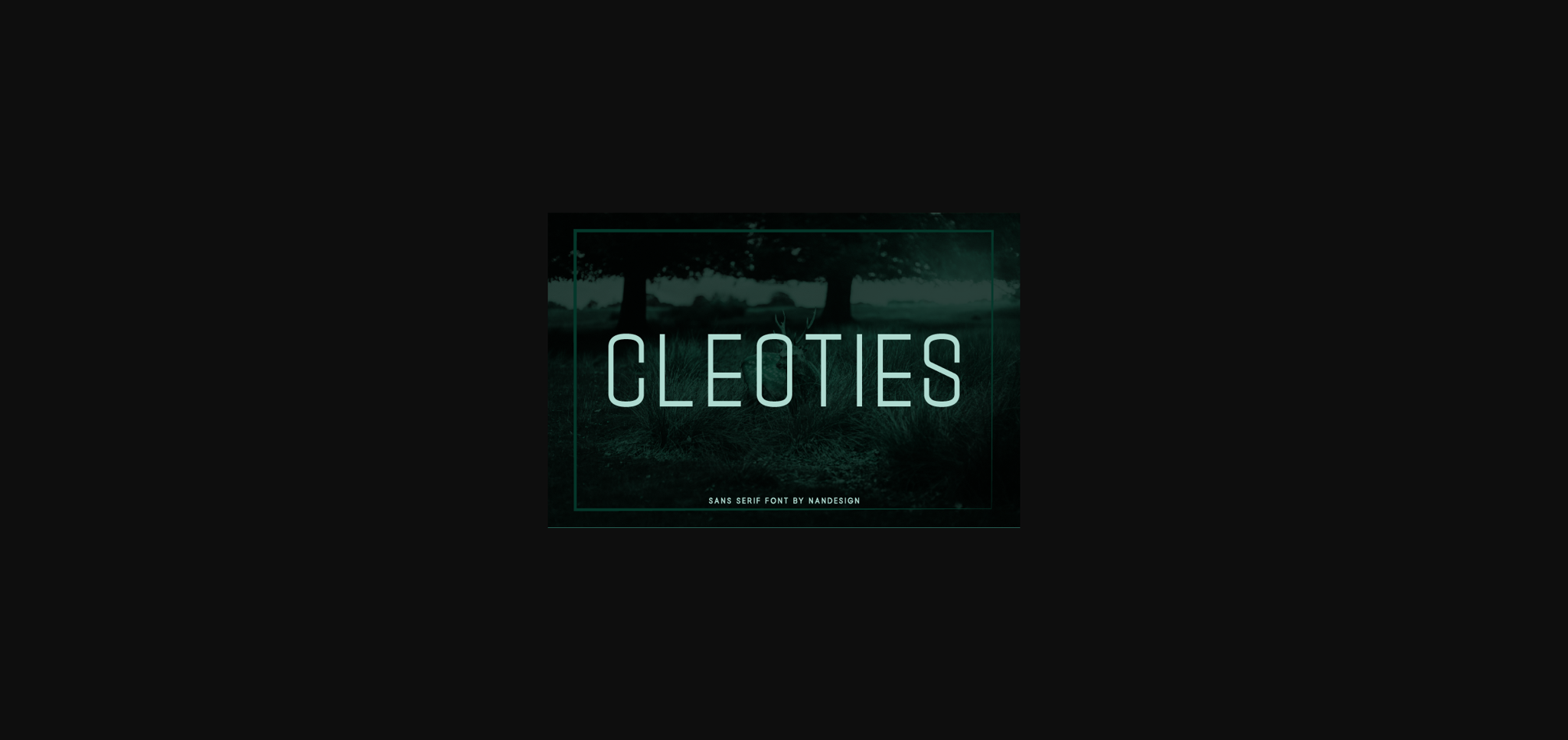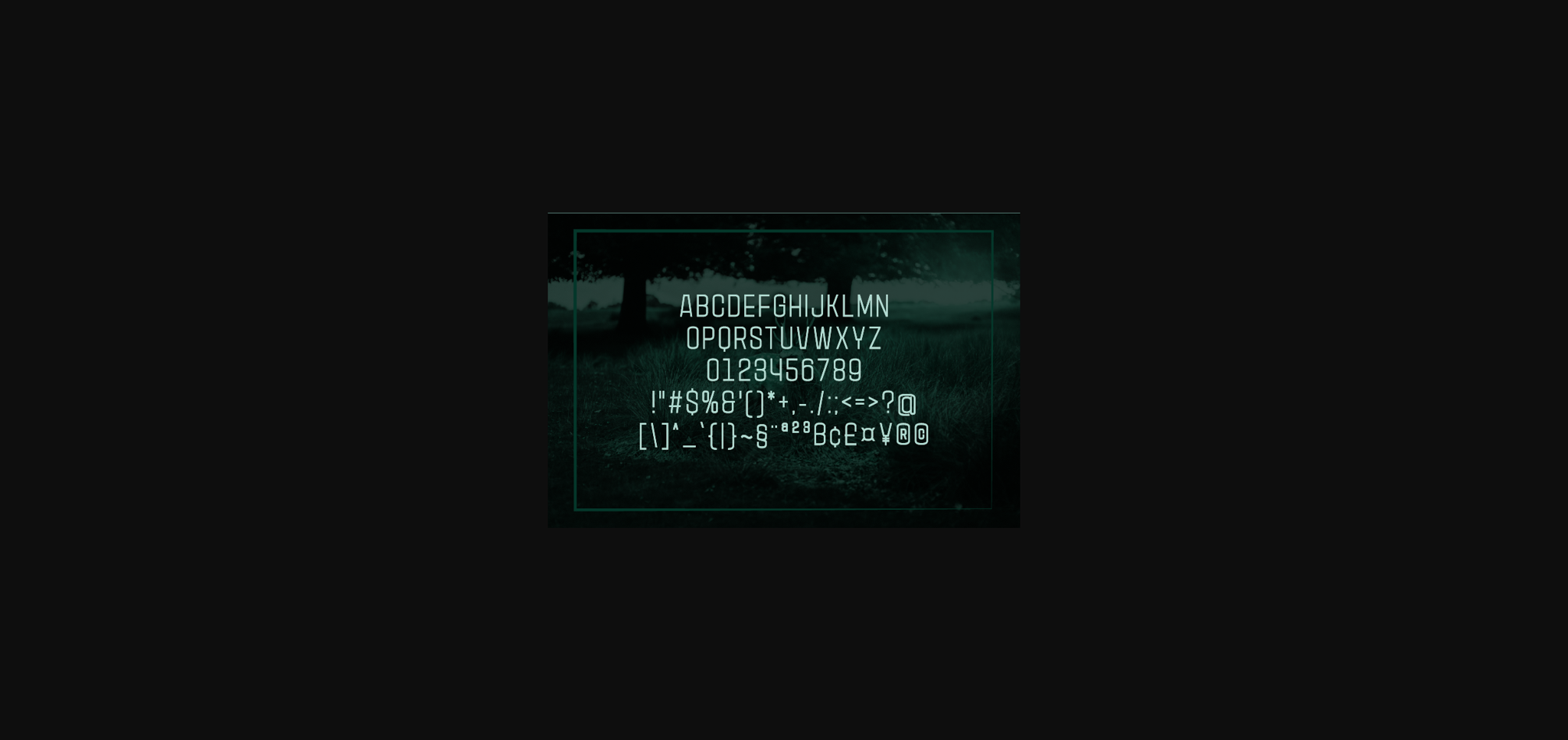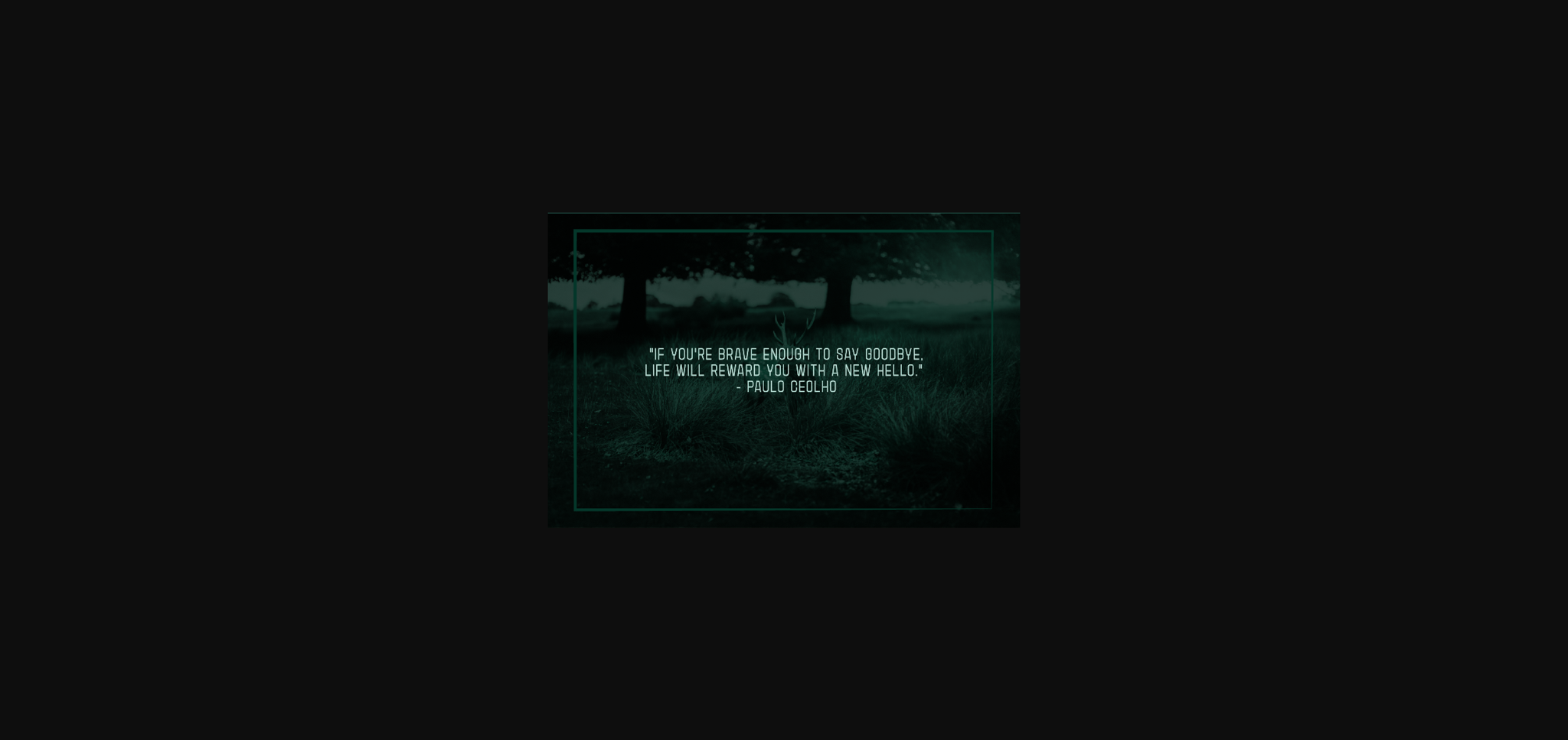
HomeSans Serif FontsCleoties Font Sans Serif Fonts Cleoties Font FacebookXPinterestWhatsApp 1 of 5 ... Cleoties Font Poster 2... Cleoties Font Poster 3... Cleoties Font Poster 4... Cleoties Font Poster 5... About Cleoties Font Cleoties is a fantastic sans serif font. It will complement any design that you are working on. Perfect for displays, headers, invitations, wedding invitations, and so much more! DOWNLOAD NOW People also explored Jingle Joy Font Monster Font Pathway script – 2 styles Eritany Annika Font Angela Font Chill Font Fleabitten Font ZP Blitzed Font The Garisha Font 458 0 TagsCleoties Font Previous articlePreditch FontNext articleMintlite Font LEAVE A REPLY Cancel reply Comment: Please enter your comment! Name:* Please enter your name here Email:* You have entered an incorrect email address! Please enter your email address here Website: Save my name, email, and website in this browser for the next time I comment. Personal Use Free Wordan Personal Use Free Read more about this font Happy Garden Personal Use Free Read more about this font Boldace Personal Use Free Read more about this font Ancient Script Personal Use Free Read more about this font BLOG Fonts That Capture the Spirit of New York City New York City is more than just a place—it’s an experience, a rhythm, a visual language... Best Fonts for T-Shirt Design – Top 2025 Picks Best Fonts for YouTube Videos: Make Your Thumbnails Stand Out Free Fonts Risk: Why Free Fonts Can Be Dangerous for Designers